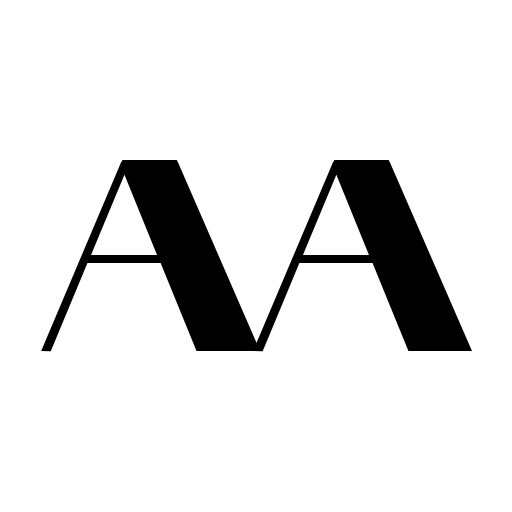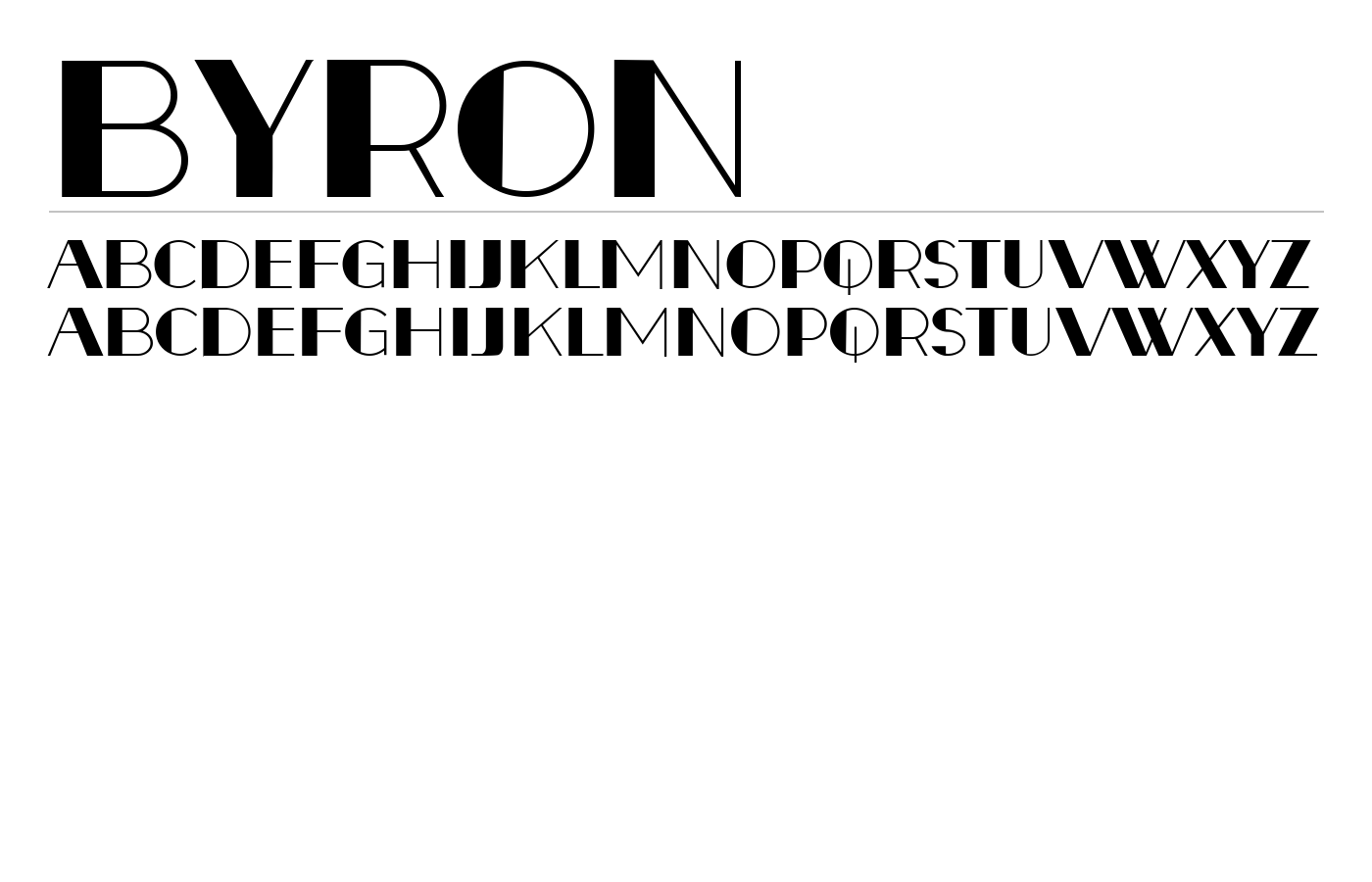
Byron is a striking display serif font characterized by its high contrast between thick and thin strokes and its elegant, geometric shapes. Its sharp, modern style with unique details, such as the bold vertical elements and thin lines, gives it a sophisticated, art deco-inspired personality perfect for luxury branding, editorial headlines, and stylish logos. This font works best in large sizes where its distinctive design can shine and lend a refined, upscale feel to any creative project.
Byron Font
About Byron Font
| Font family | Byron Font |